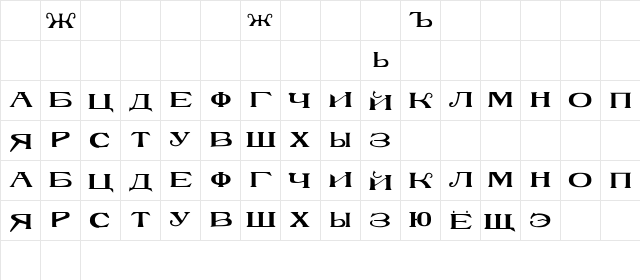
RusskijModern Regular
Design Context for RusskijModern Typeface
RusskijModern is a composed and adaptable typeface that performs quietly and consistently across a wide range of design contexts.